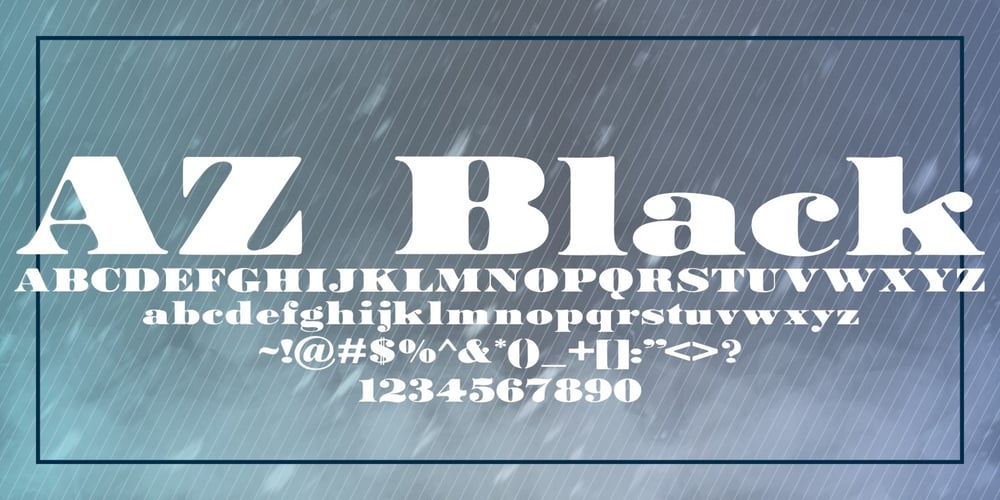
AZ Black
AZ Black font
AZ Black Font Family was designed by published by Artist of Design. AZ Black contains 1 styles and family package options. AZ Black was inspired from a need to develop an easily changable Black style font similar to the bold type on US currency. This font was designed for use as a display headline or sub headline.